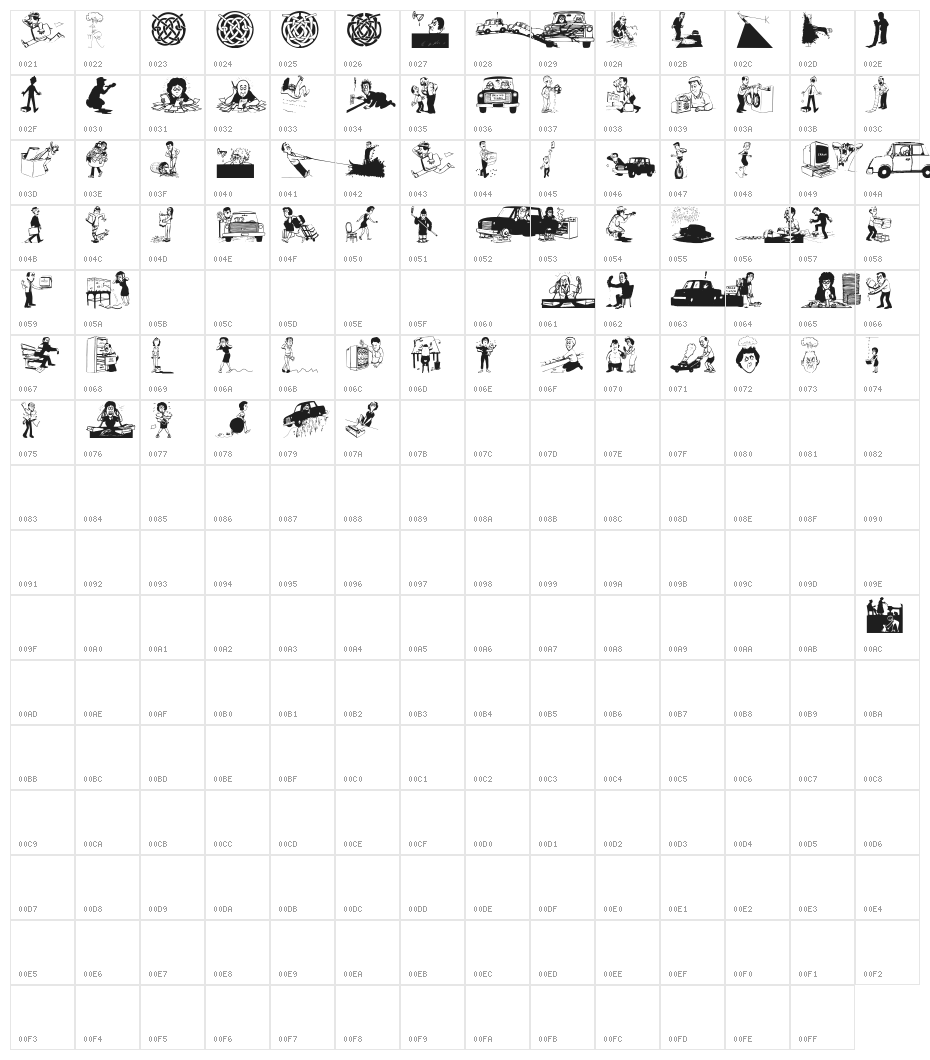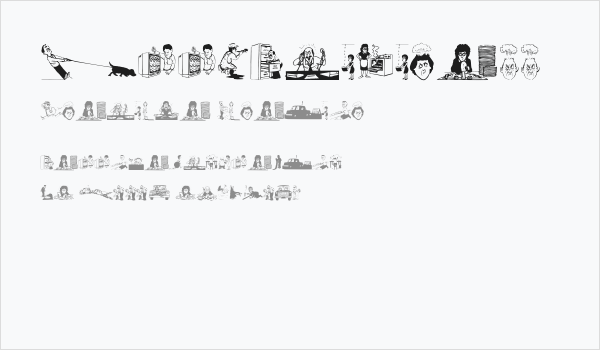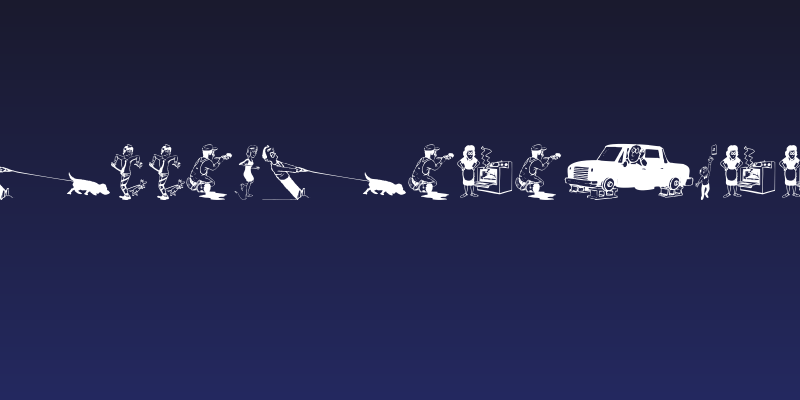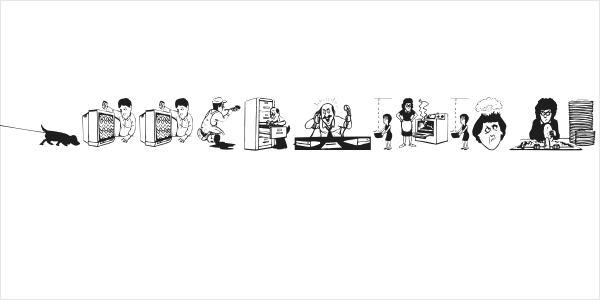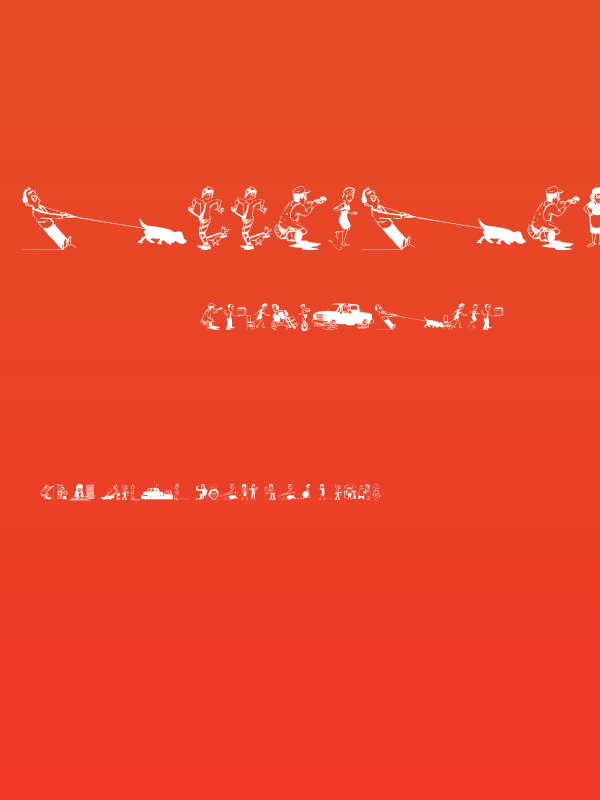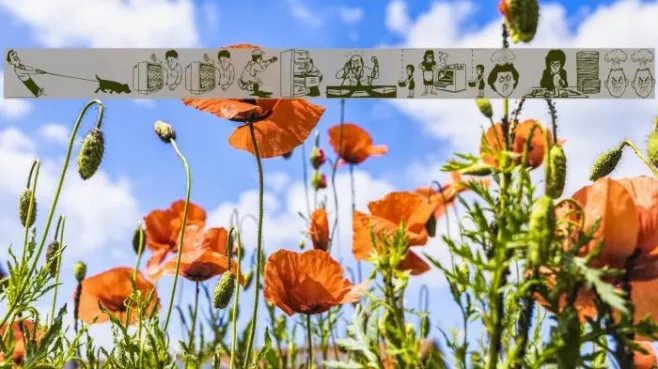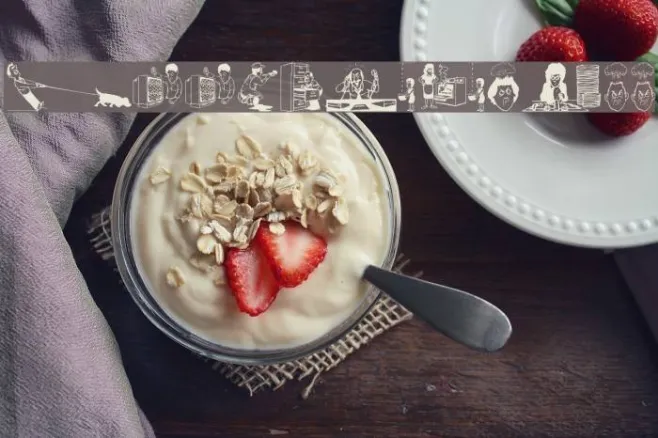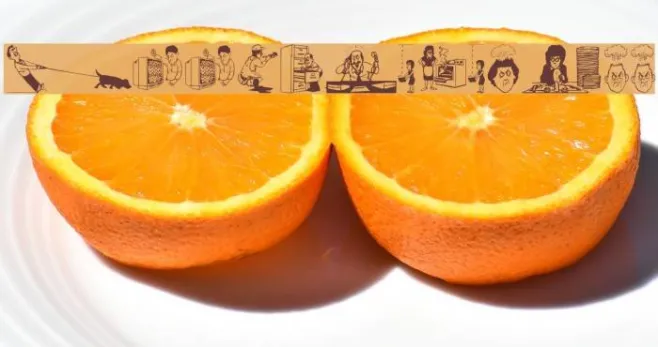
AllThatStress Font
AllThatStress Description
A decorative dingbat font composed entirely of detailed cartoon illustrations depicting various stressful everyday situations, such as work, family, and car troubles. Each character is represented by a unique scene rather than a traditional letterform.
| Overall Style | Decorative, Humorous, Cartoonish |
| Use Case | Illustrative elements, Thematic graphics, Visual storytelling |
| Proposed Projects | Comics, editorial illustrations, mental health awareness materials, playful posters, greeting cards. |